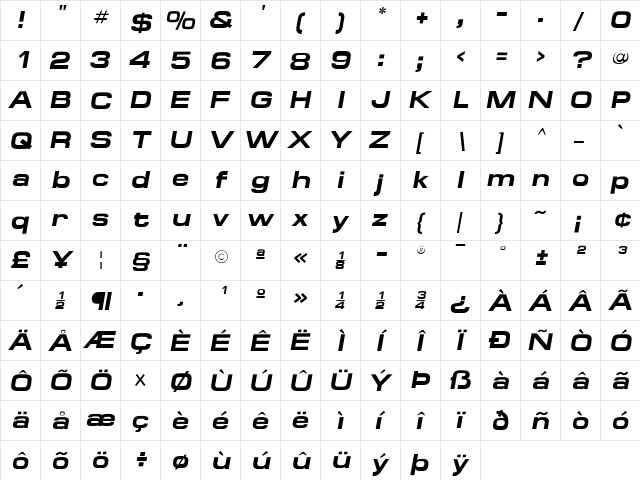
MicroExtendFLF-BoldItalic Regular Font Preview
Design Context for MicroExtendFLF-BoldItalic Typeface
MicroExtendFLF-BoldItalic takes a measured approach to typography — its balanced proportions and neutral character make it a reliable workhorse for both digital and print work. Its italic angle brings a sense of urgency and motion to the letterforms. The heavy weight commands attention and anchors typographic hierarchies.
Pro Tip: Use MicroExtendFLF-BoldItalic for emphasis, pull quotes, and subheadings where its slanted energy can add rhythm to the layout.